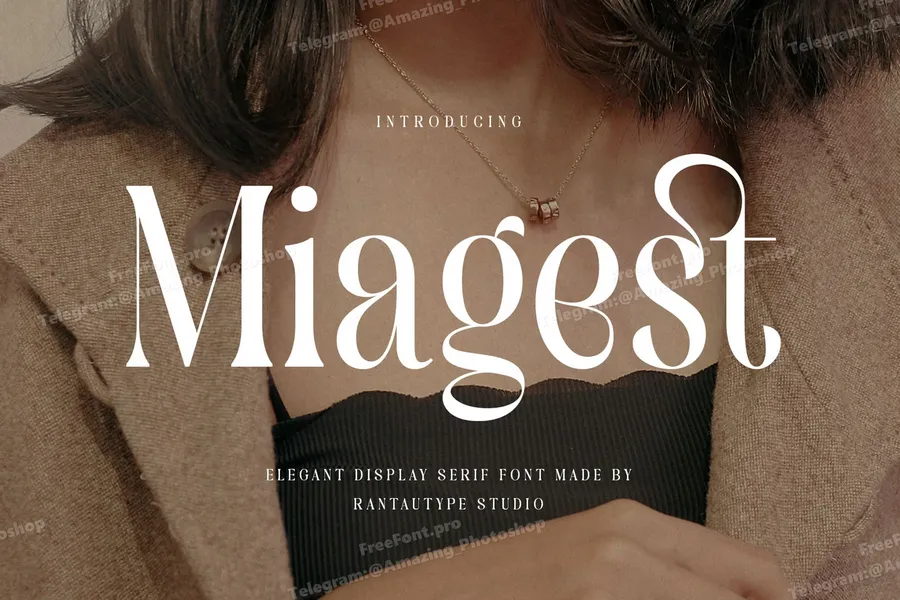
Miagest Elegant Serif Font
Miagest an elegant serif font that embodies timeless sophistication and refined beauty, this typeface is designed to elevate any visual composition. With graceful curves, high contrast strokes, and delicate serifs, it exudes a classic charm while maintaining modern readability.
Miagest is a perfectly choice for any creative endeavor, chic, lifestyle design such as logotype, advertisements, watermark on photography, stationery, branding project, display and magazine, invitation, corporate brand, product design, label, business project and many other project with elegant touch.